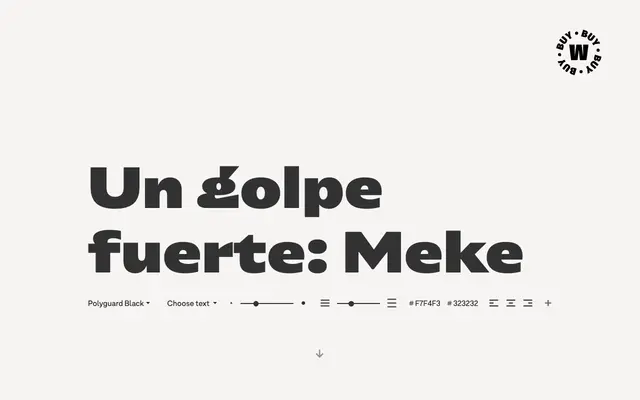
Polyguard
A wide, industrial-flavoured display sans in six weights with matching obliques, built for headline and branding use.
Designed by Carlos Ávila, Polyguard pairs slightly expanded proportions with vertical stroke endings and widened terminals to create a sans that reads as structured but not mechanical. Six weights from Thin to Black each carry a matching oblique, giving twelve styles in total. Suited to packaging, signage and editorial work where presence at large sizes matters more than refinement at small ones.
Described explicitly as display-driven, with slightly wide proportions, vertical stroke endings and expanded terminals designed for high-impact headline and branding use rather than sustained text setting.